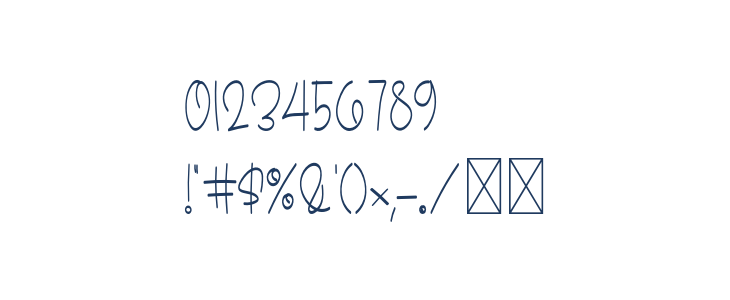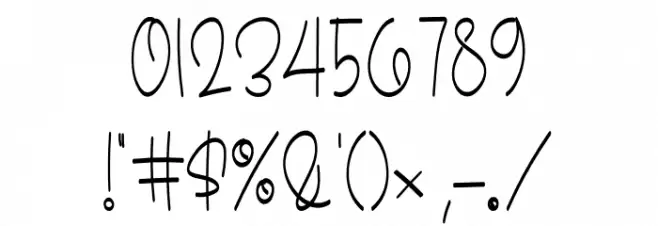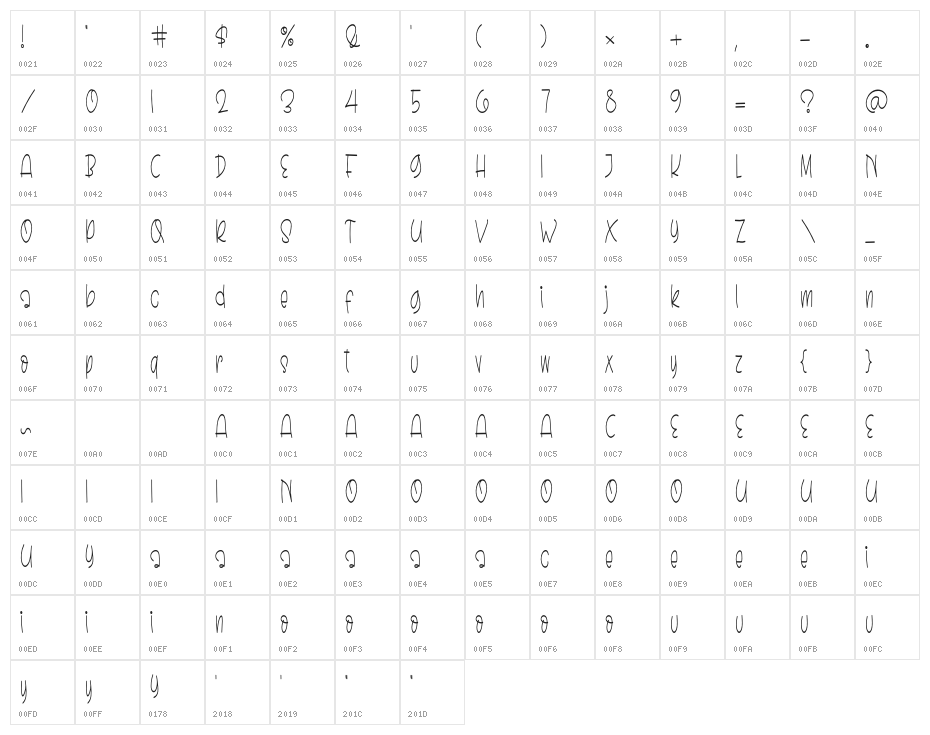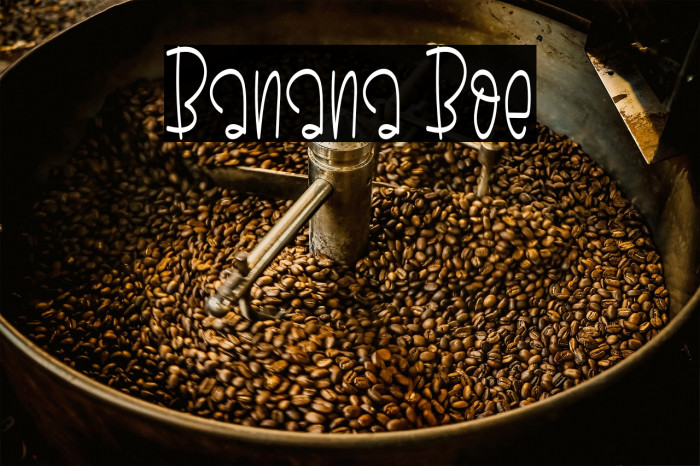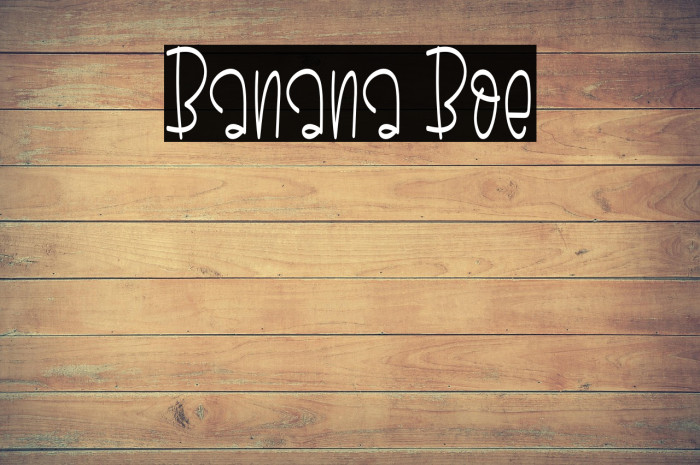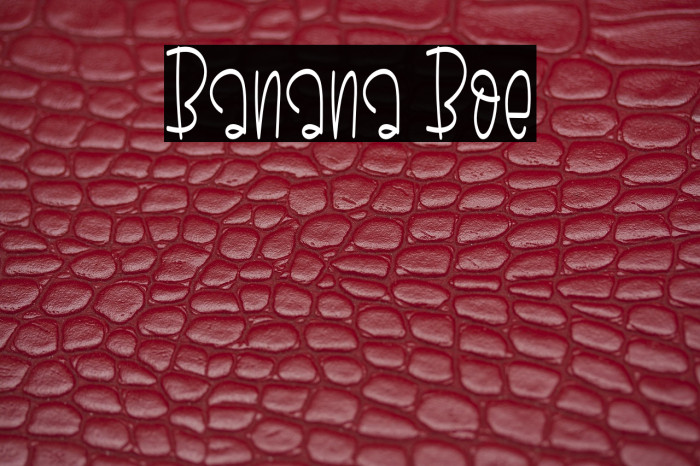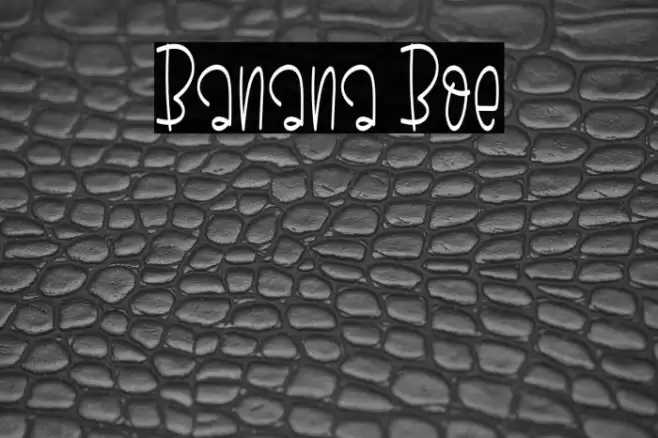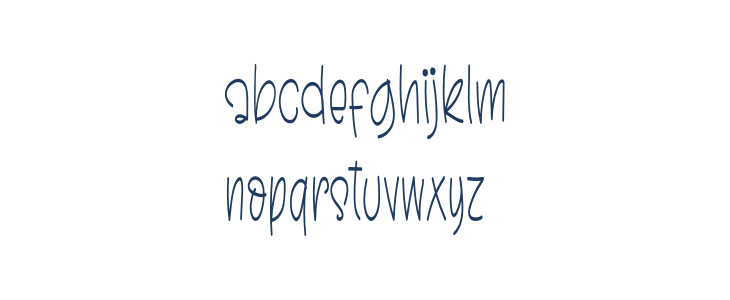
Banana Boe Font
Banana Boe Description
This playful and whimsical font features tall, narrow characters with a hand-drawn appearance. The strokes are uneven, giving it a casual and friendly vibe. The uppercase letters are slightly taller than the lowercase, and the numbers maintain the same playful style. Special characters are included, adding versatility. The font's unique style makes it stand out, perfect for projects that require a touch of personality and creativity.
| Proposed Projects | Ideal for children's books, greeting cards, playful branding, and creative posters. |